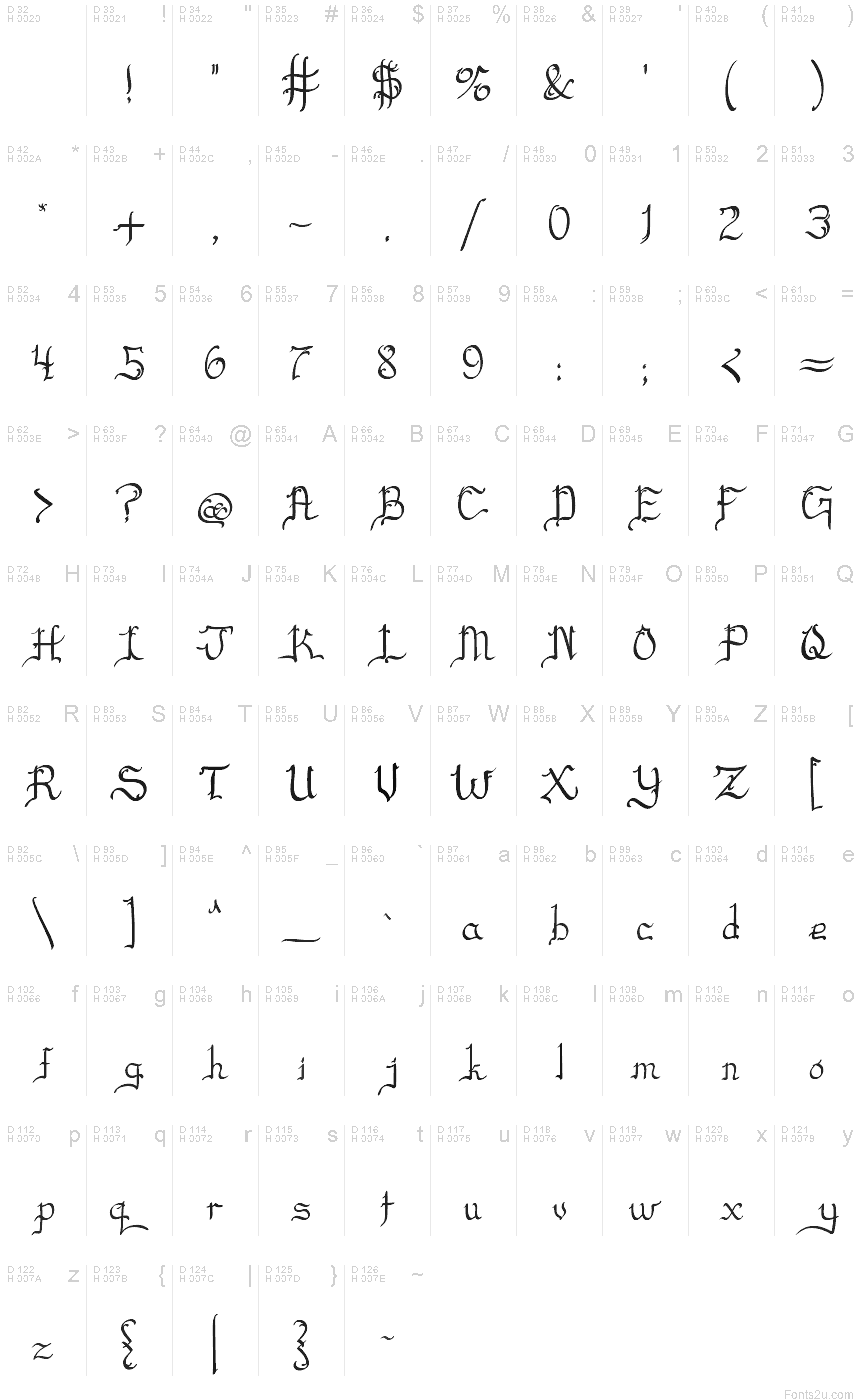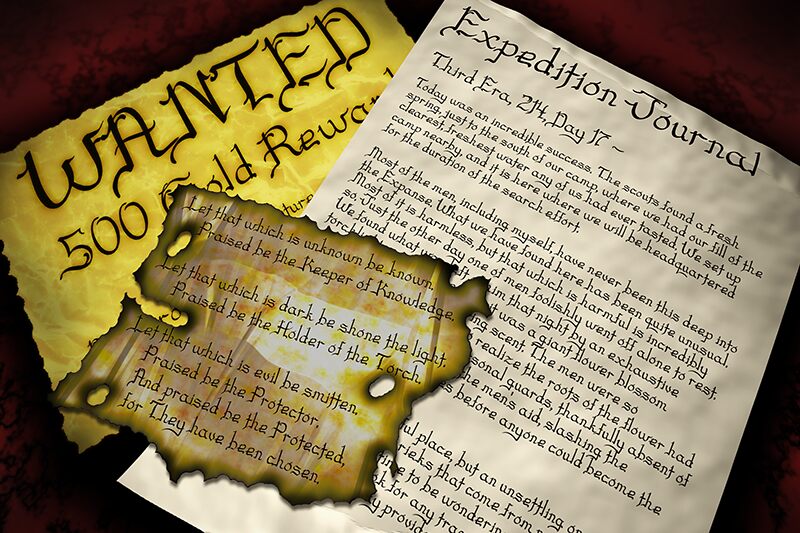
Blackscript
A unique script from a time long past. Its forms are so familiar, yet so alien, painted by an otherworldy hand. Each of its thick, confident strokes tells tales of adventure across unfathomable landscapes. This is a mystery that wants to be explored.